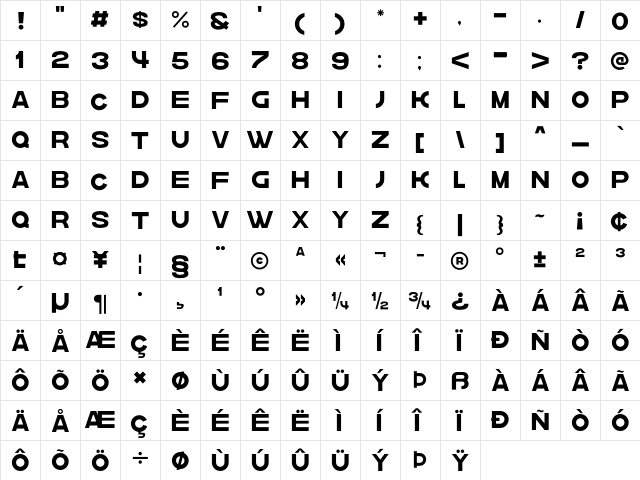
krown Regular
Design Context for krown Typeface
krown is a composed and adaptable typeface that performs quietly and consistently across a wide range of design contexts.